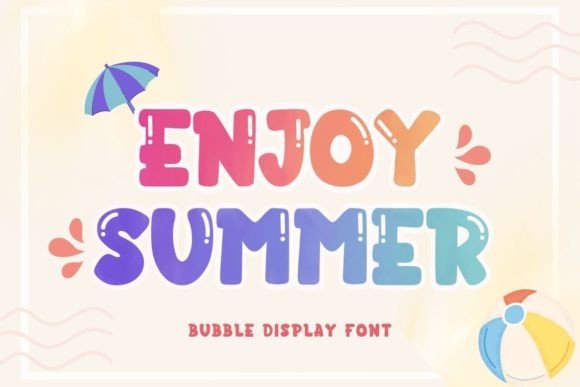
Enjoy Summer Font: Add a Touch of Casual Charm to Your Designs
Summer is here, and it’s time to infuse your designs with a fresh and playful vibe. Introducing Enjoy Summer Font, a delightful display font that’s perfect for creating a wide range of designs that scream fun and creativity. In this article, we’ll dive into the features and benefits of Enjoy Summer Font, and explore how you can use it to take your designs to the next level.
What is Enjoy Summer Font?
Enjoy Summer Font is a cute display font that’s designed to bring a casual charm to your designs. Its playful and carefree style makes it perfect for creating eye-catching banners, social media posts, mugs, cards, shirts, and more. With Enjoy Summer Font, you can add a touch of whimsy and fun to your designs, making them stand out from the crowd.
Key Features of Enjoy Summer Font
- Cute and Playful Style: Enjoy Summer Font boasts a unique and adorable design that’s sure to capture the attention of your audience.
- Casual Charm: This font exudes a relaxed and casual vibe, making it perfect for designs that require a friendly and approachable tone.
- Versatile: Enjoy Summer Font can be used for a wide range of designs, from banners and social media posts to mugs, cards, and shirts.
- Easy to Read: Despite its playful style, Enjoy Summer Font is easy to read, making it perfect for designs that require a clear and concise message.
Benefits of Using Enjoy Summer Font
So, why should you choose Enjoy Summer Font for your designs? Here are just a few benefits of using this delightful font:
- Adds a Touch of Personality: Enjoy Summer Font allows you to add a touch of personality to your designs, making them more relatable and engaging.
- Perfect for Summer Designs: As the name suggests, Enjoy Summer Font is perfect for summer-themed designs, but its versatility makes it suitable for designs throughout the year.
- Great for Crafters and Designers: Whether you’re a professional designer or a crafter, Enjoy Summer Font is a great addition to your font collection, offering endless possibilities for creative expression.
Ideas for Using Enjoy Summer Font
Now that we’ve explored the features and benefits of Enjoy Summer Font, let’s dive into some ideas for using this delightful font:
- Banners and Signs: Create eye-catching banners and signs for events, sales, or promotions using Enjoy Summer Font.
- Social Media Posts: Add a touch of fun and personality to your social media posts, making them stand out in crowded feeds.
- Mugs and Water Bottles: Design personalized mugs and water bottles with Enjoy Summer Font, perfect for gifts or promotional items.
- Cards and Stationery: Create adorable cards and stationery for special occasions, such as birthdays, weddings, or holidays.
- T-Shirts and Apparel: Design fun and playful t-shirts and apparel using Enjoy Summer Font, perfect for casual wear or promotional items.
Enjoy Summer Font is a delightful display font that’s perfect for adding a touch of casual charm to your designs. Its playful and carefree style makes it versatile and easy to use, making it a great addition to your font collection. Whether you’re a designer or crafter, Enjoy Summer Font offers endless possibilities for creative expression. So why not give it a try and see how it can elevate your designs?